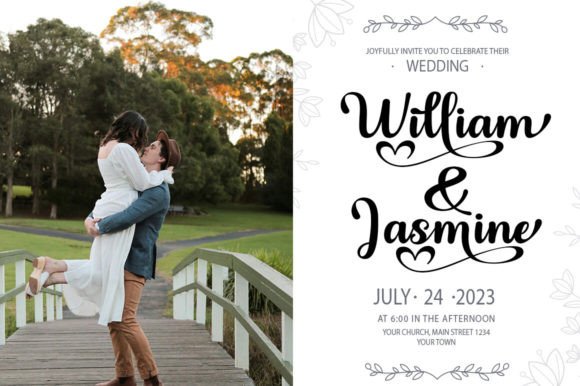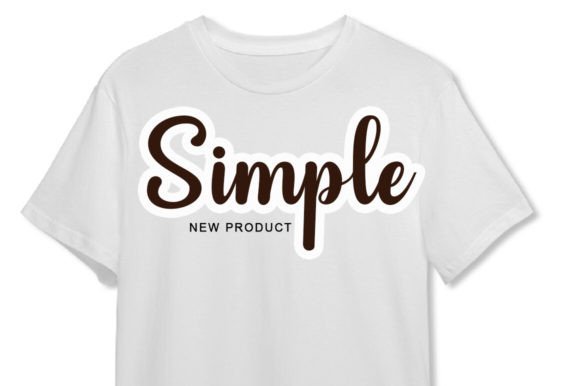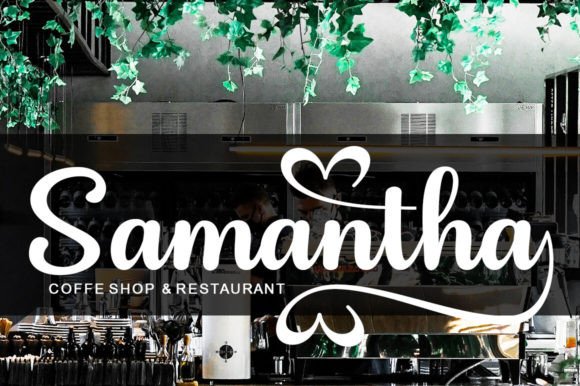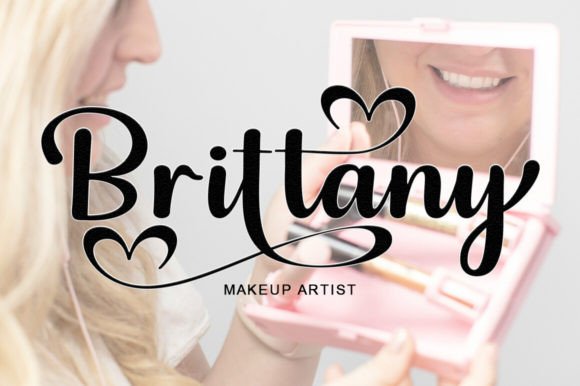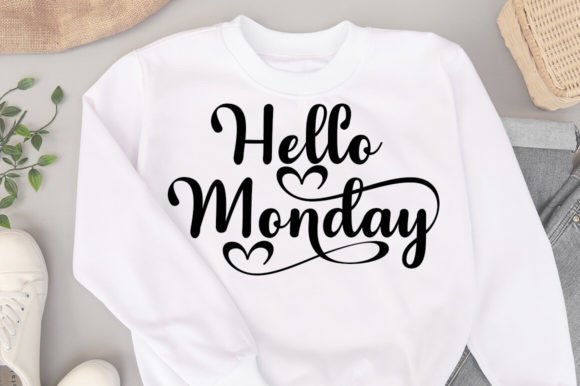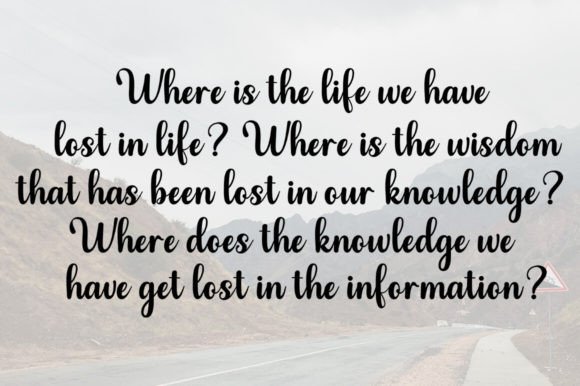
Glamour Font: Elevate Your Designs with Elegance and Sophistication
Are you looking for a font that exudes luxury, sophistication, and romance? Look no further than Glamour Font, a lovely script font with a touch of love. This stunning font is perfect for designers and crafters who want to add an elegant touch to their projects. In this article, we’ll dive into the features and benefits of Glamour Font and explore its various uses in design.
What is Glamour Font?
Glamour Font is a beautiful script font that is designed to add a touch of glamour and sophistication to any design project. With its elegant and flowing lines, this font is perfect for creating stylish and eye-catching text overlays, logos, and branding materials. Glamour Font comes equipped with many glyphs, making it a versatile and flexible font that can be used in a variety of design applications.
Key Features of Glamour Font
- Elegant Script Design: Glamour Font features a beautiful script design with flowing lines and elegant curves, perfect for creating sophisticated and luxurious designs.
- Many Glyphs: This font comes equipped with many glyphs, allowing you to create a wide range of designs and variations.
- Perfect for Branding: Glamour Font is ideal for branding projects, including logos, business cards, and product packaging.
Uses of Glamour Font
Glamour Font is a versatile font that can be used in a variety of design applications, including:
- Branding Projects: Use Glamour Font to create elegant and sophisticated logos, business cards, and product packaging.
- Homeware Design: Add a touch of glamour to your homeware designs, including invitations, menus, and decor.
- Product Packaging: Use Glamour Font to create eye-catching and luxurious product packaging that stands out on store shelves.
- Invitation Cards: Create beautiful and elegant invitation cards for weddings, parties, and other special events.
- Stylish Text Overlays: Use Glamour Font as a stylish text overlay on background images or videos to add an elegant touch.
Benefits of Using Glamour Font
Using Glamour Font in your design projects offers several benefits, including:
- Instant Elegance: Add an instant touch of elegance and sophistication to your designs with Glamour Font.
- Versatility: This font can be used in a variety of design applications, from branding to homeware design.
- Unique Designs: With its many glyphs, Glamour Font allows you to create unique and customized designs that stand out.
Tips for Using Glamour Font
Here are some tips for using Glamour Font in your design projects:
- Pair with Simple Backgrounds: Pair Glamour Font with simple backgrounds to make your text stand out.
- Experiment with Glyphs: Experiment with the many glyphs in Glamour Font to create unique and customized designs.
- Use for Headlines: Use Glamour Font for headlines and titles to add an elegant touch to your designs.
- Keep it Simple: Keep your design simple and clean to let Glamour Font shine.
Glamour Font is a stunning script font that is perfect for designers and crafters who want to add an elegant touch to their projects. With its many glyphs and elegant design, this font is versatile and flexible, making it suitable for a wide range of design applications. Whether you’re working on branding projects, homeware design, or product packaging, Glamour Font is sure to elevate your designs and add a touch of luxury and sophistication.